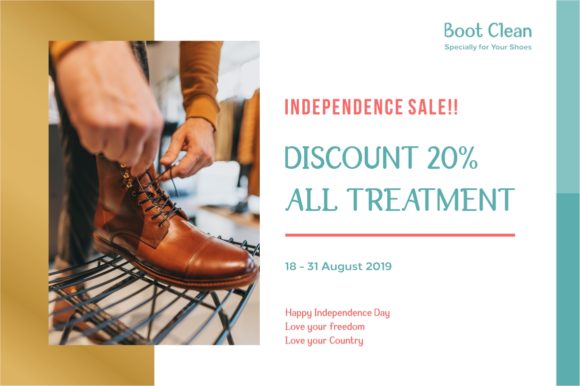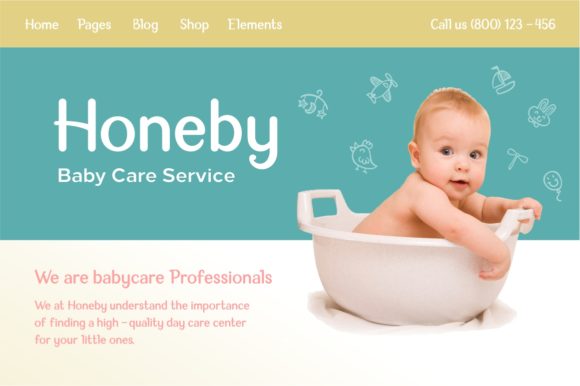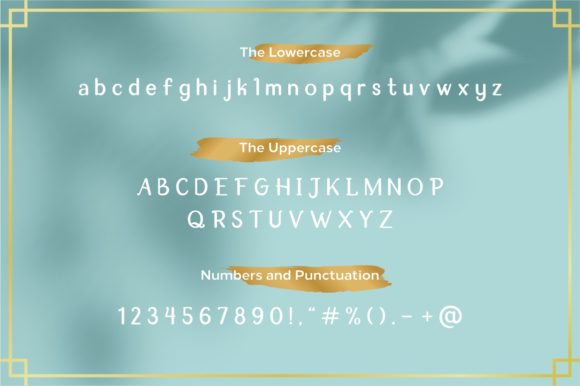
Getting Inspired with the Royal Quest Font
Have you ever been working on a creative project, staring at a blank page, and suddenly a spark of inspiration hits you? For designers, those moments are what make all the hard work worth it. For me, it was the discovery of the Royal Quest Font. This sweet and simple serif font has an incredibly soft feel that instantly drew me in.
With its transparent background and high quality design, the Royal Quest Font is a valuable resource for any designer looking to elevate their creative project. Whether you’re working on a branding campaign or a digital design, this font is sure to add a touch of sophistication and elegance. And the best part? It’s available for free download, making it a must-have in any designer’s toolkit.
In this article, we’ll delve into the world of the Royal Quest Font and explore what makes it a standout design resource.
Key Features of Royal Quest Font
- High-quality, professional font design suitable for various creative projects, including games, comics, and graphic novels.
- Features a unique, fantasy-inspired design with intricate details, perfect for adding a touch of elegance to any project.
- Perfect for use in digital and print projects, including logos, icons, and text-based designs.
Honest Review: Royal Quest Font
As a designer, I’m always on the lookout for high-quality design resources that can elevate my creative projects. The Royal Quest Font is one such resource that caught my attention. I downloaded it for free and was excited to see how it would perform.
- ✨ The font is incredibly versatile, making it perfect for a variety of design projects, from logos to brochures.
- ✨ The transparent background feature allows for seamless integration with other design elements.
- ✨ The font’s high-quality design ensures that it looks great at any size.
- ⚠️ The font is not as customizable as I would have liked, which can limit its use in certain design projects.
Overall, I’m impressed with the Royal Quest Font. While it may have some limitations, its high quality and versatility make it a valuable addition to any designer’s toolkit. If you’re looking for a reliable and stylish font for your next creative project, I would definitely recommend giving it a try.
The Royal Quest Font is a high-quality design resource ideal for creative projects that require a touch of elegance and sophistication. This font is available for free download and offers a transparent background, making it easy to integrate into your design.
Tips for Getting the Most Out of Royal Quest Font
To get the most out of the Royal Quest Font, use it in conjunction with other design elements that complement its elegant and sophisticated style. Experiment with different font sizes, colors, and combinations to achieve the desired effect.
The Royal Quest Font is ideal for a variety of design projects, including: branding, marketing materials, presentations, and more. Its elegant and sophisticated style makes it perfect for formal and professional designs.